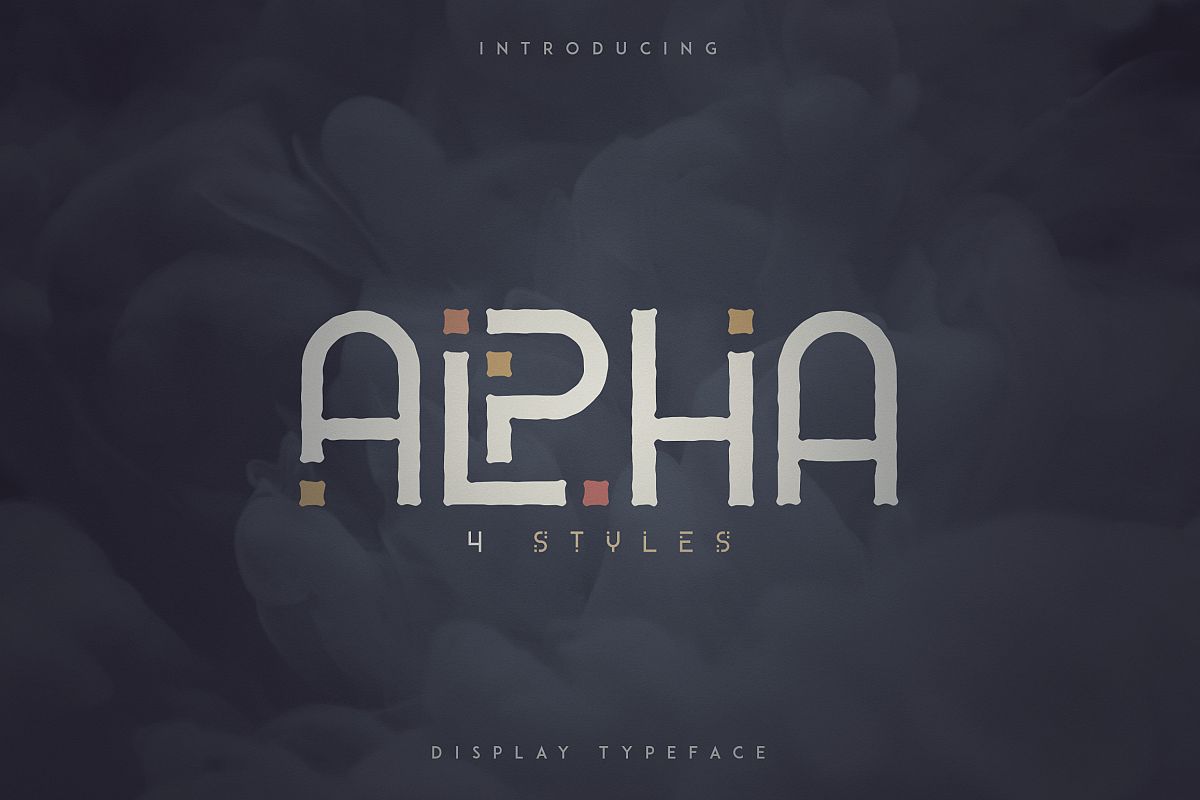
Alpha is a modern display font with clean geometry, rounded details, and a strong contemporary presence. Designed for clarity and impact, it works exceptionally well in headlines, posters, branding, editorial layouts, and modern graphic design projects.
Its balanced proportions and minimalist character make Alpha versatile for both bold statements and refined typography. The font includes uppercase and lowercase letters, numerals, punctuation, and extensive multilingual support, making it suitable for professional print and digital use. Delivered in OTF format, ready for immediate use.